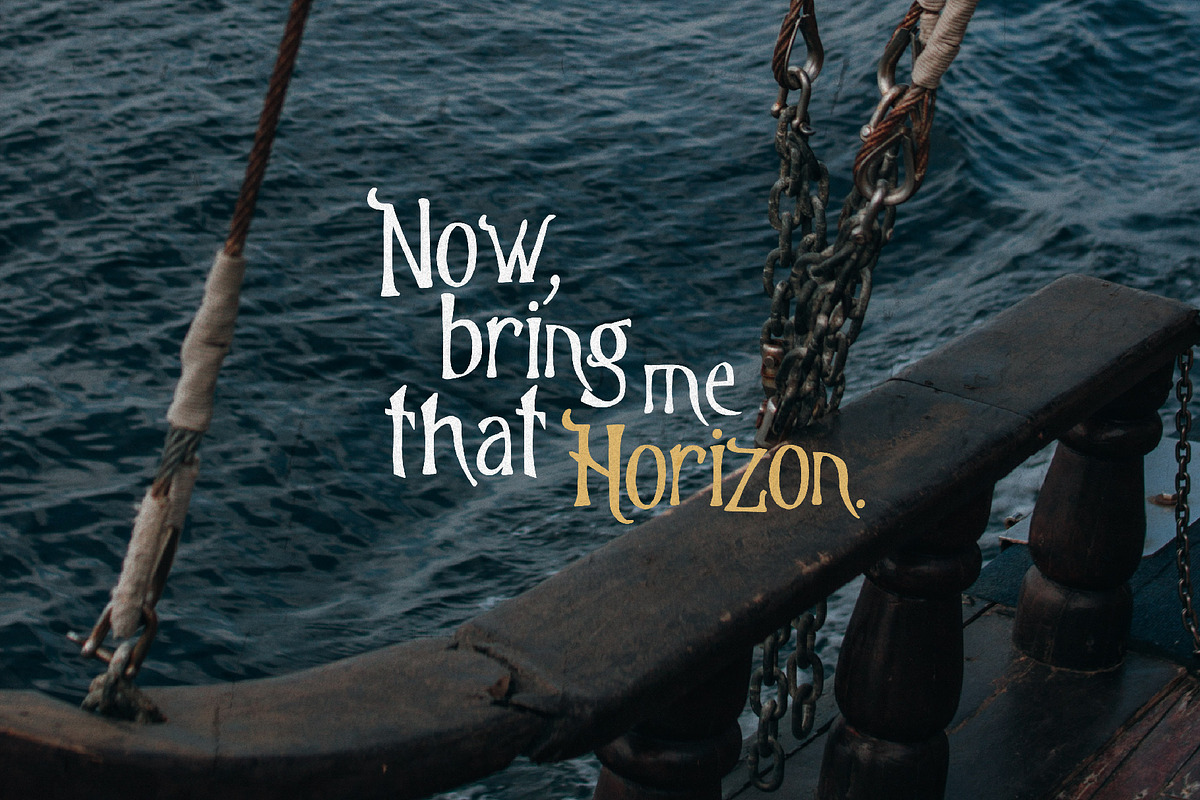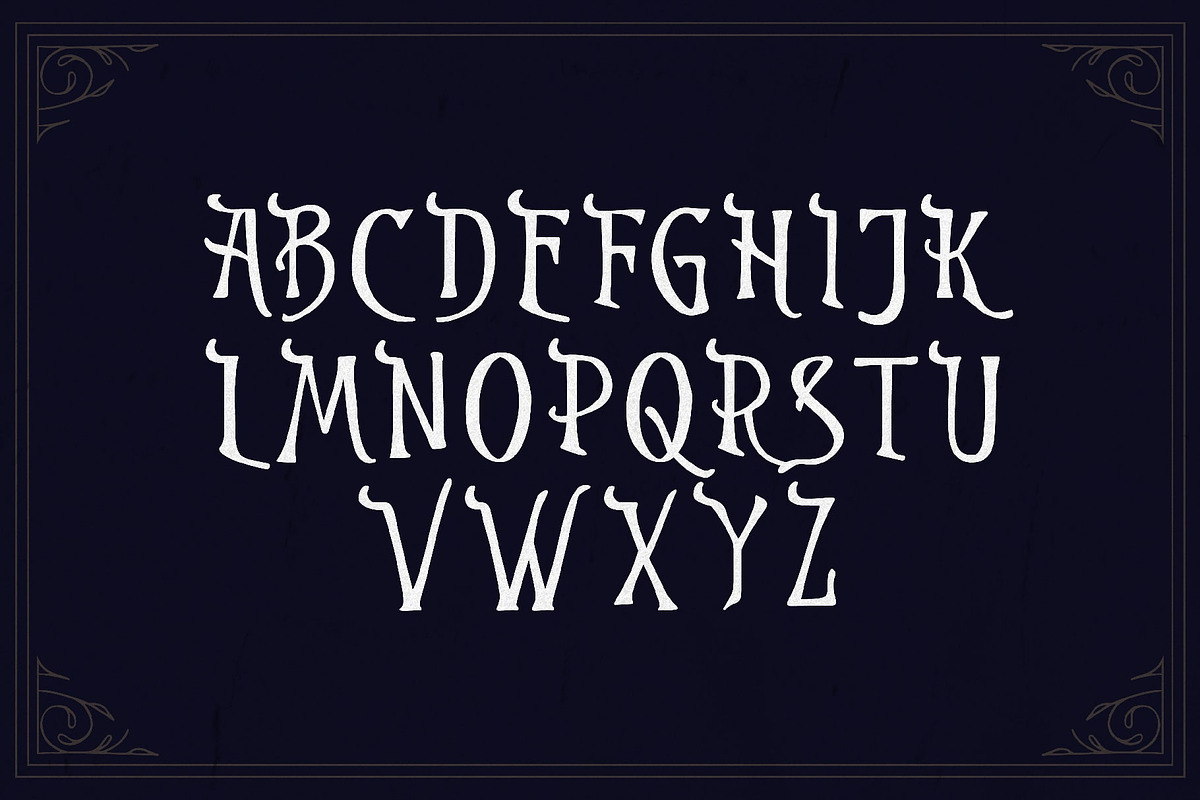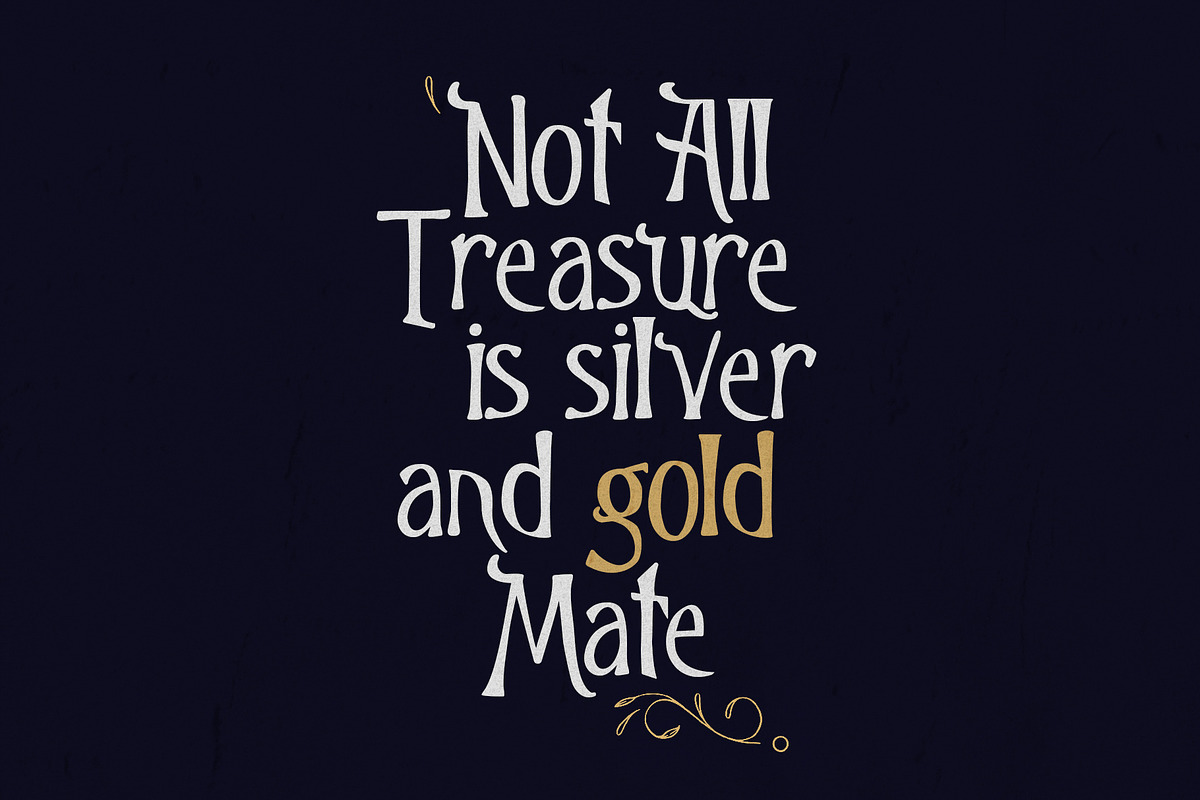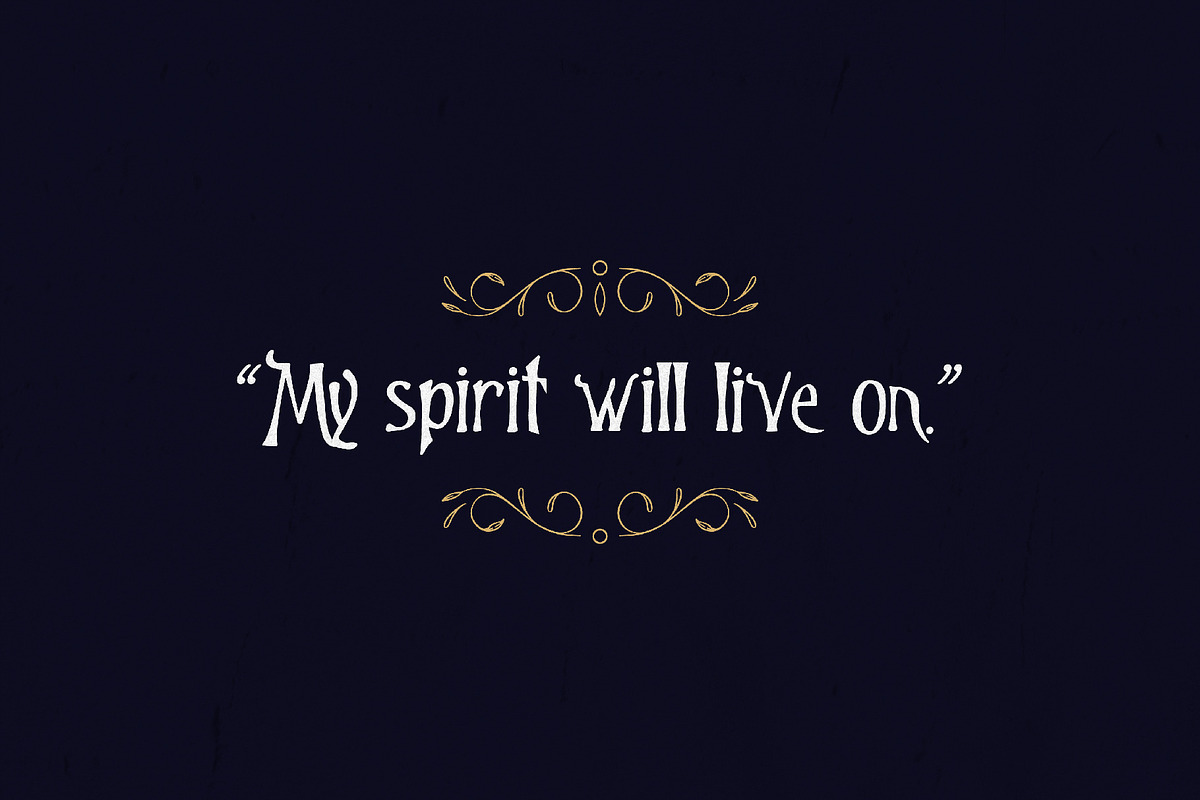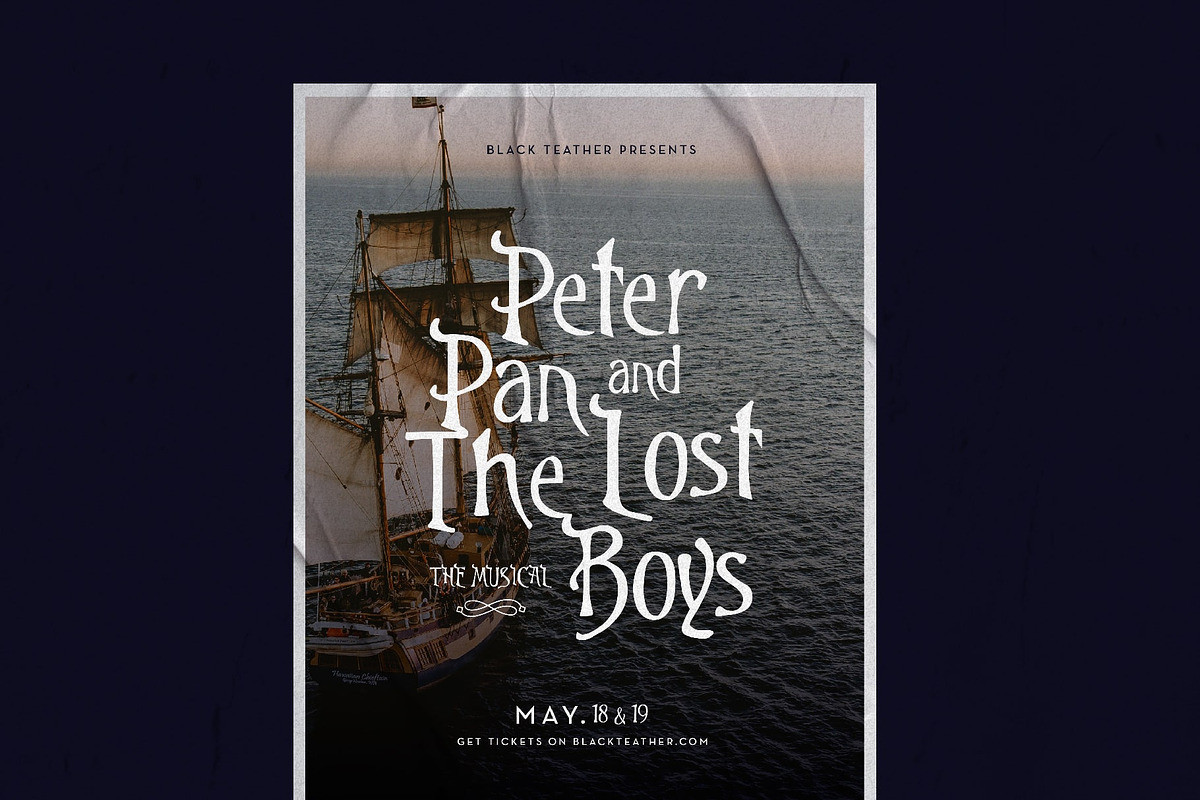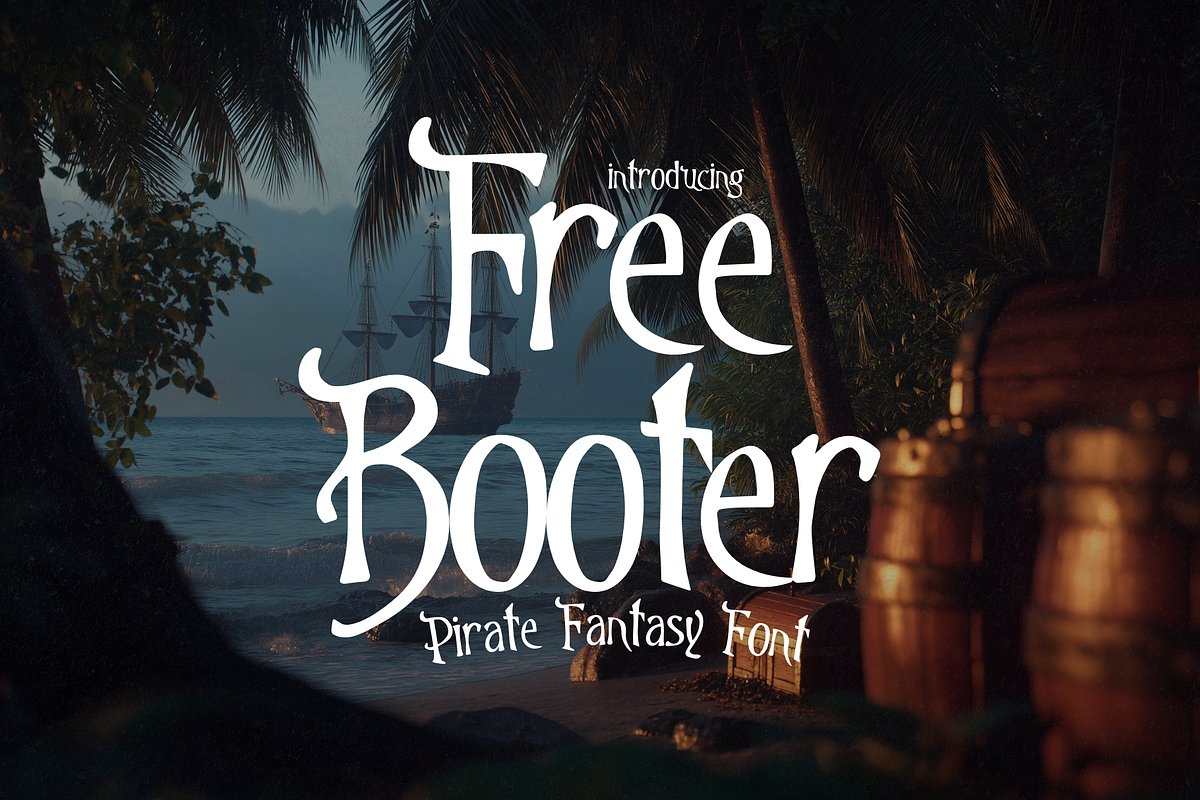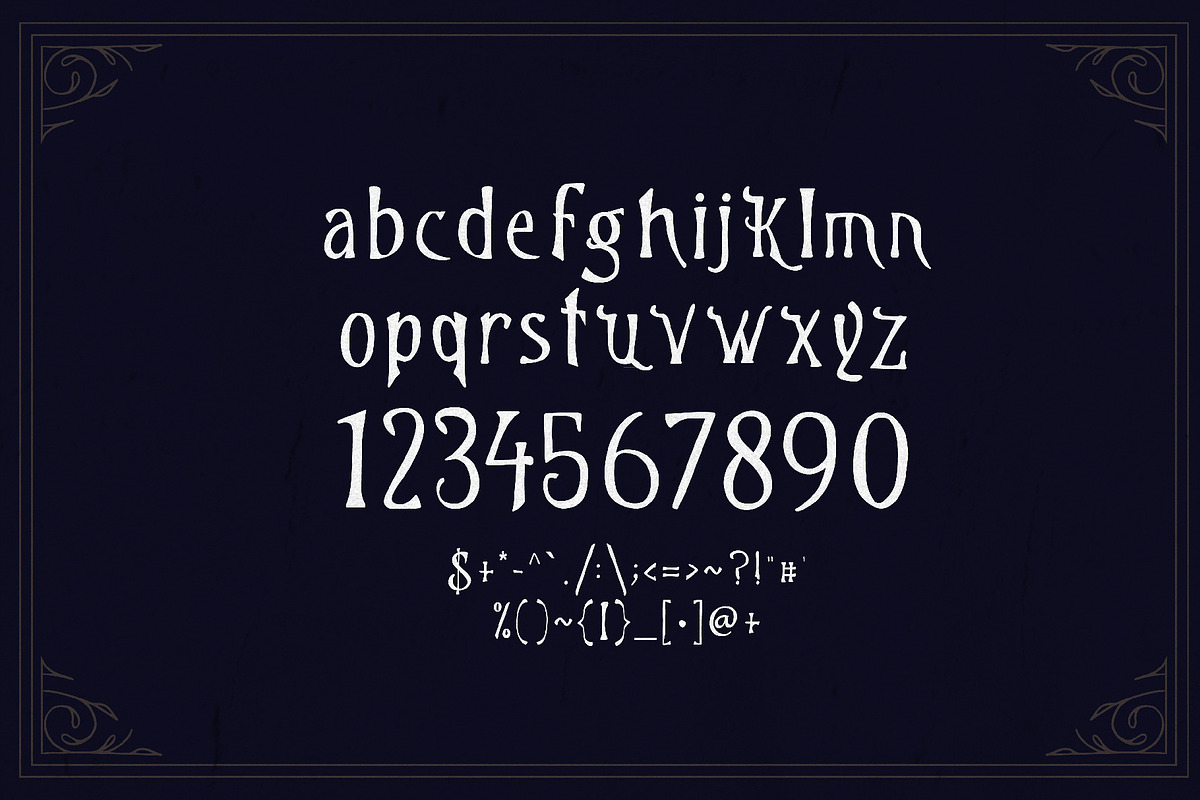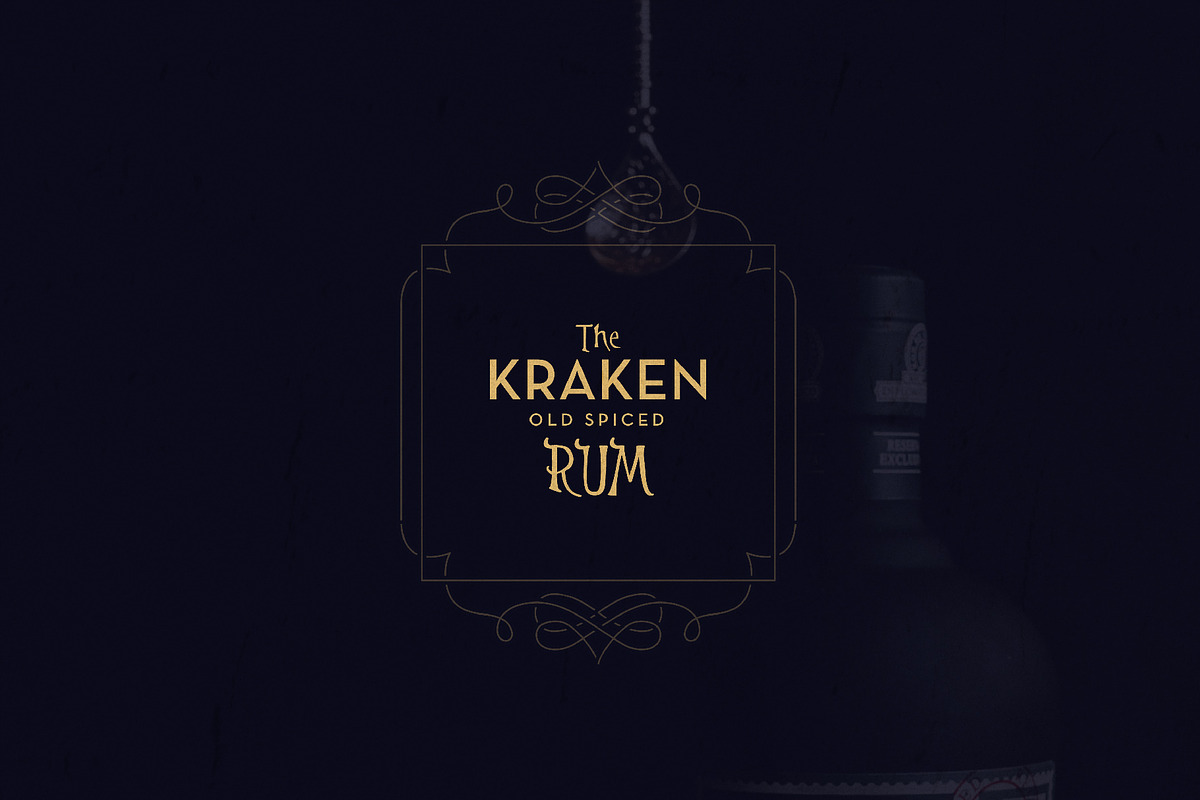
Freebooter - Pirate Display
Freebooter is a pirate inspired typeface from the 1500s. The imperfections of Freebooter will give your designs and authentic human touch. It comes with upper and lowercase letters along with all the special characters you would expect. Suitable for branding, apparel, social media, advertising, editorials, marketing. etc.